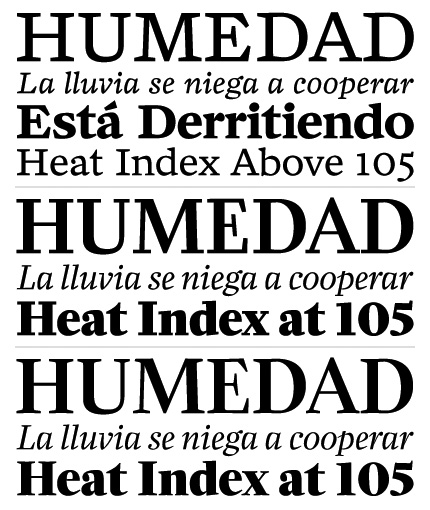
Zócalo Text, Banner & Display (FontBureau)
Cyrus Highsmith’s Zócalo (Mexican for “central plaza”) is a spirited new series with an exuberant personality. Conceived originally for Eduardo Danilo’s redesign of El Universal, Zócalo takes oldstyle forms after the late 17th-century manner of Nicholas Kis and animates them with typical Highsmith style, inspired by the energetic character of Mexico City.
Taking additional cues from the classic newsface Ionic No. 5, Zócalo Text is broad and sturdy, with a large x-height and generous counters. It excels in narrow columns and small text. For larger sizes, there are two distinct versions with narrower proportions and refined contrast: Banner retains some of the robust character of the Text with hardy flat serifs, while Display replaces these with sharper, slightly bracketed serifs and adds extra sparkle and elegance with even higher contrast.
Together, all three versions form a unique, multifaceted family with singular verve and vitality.